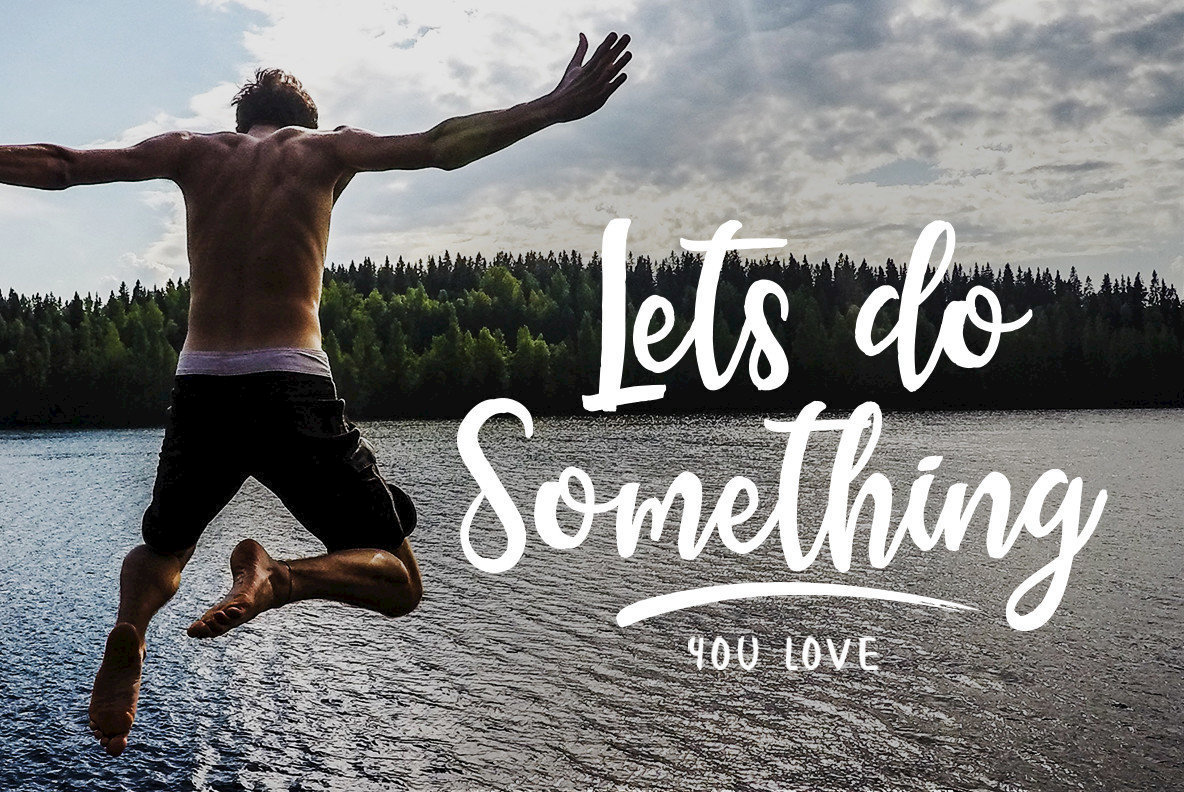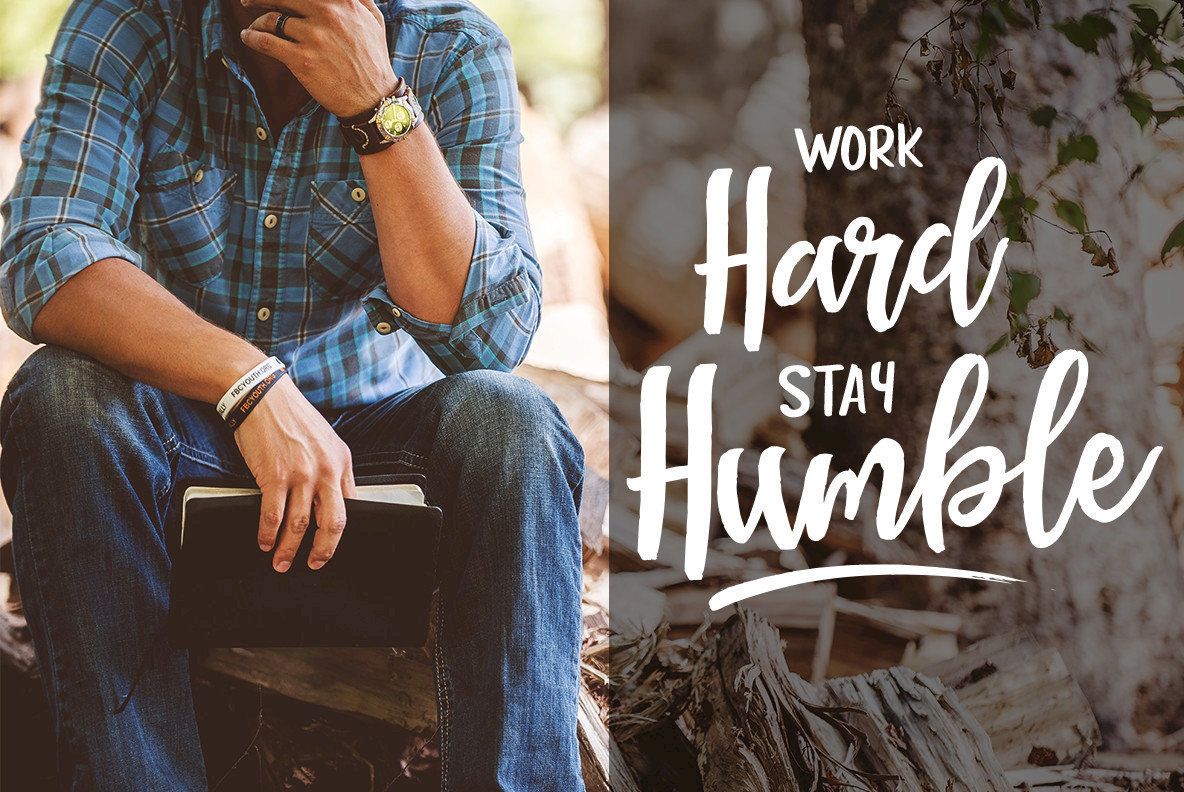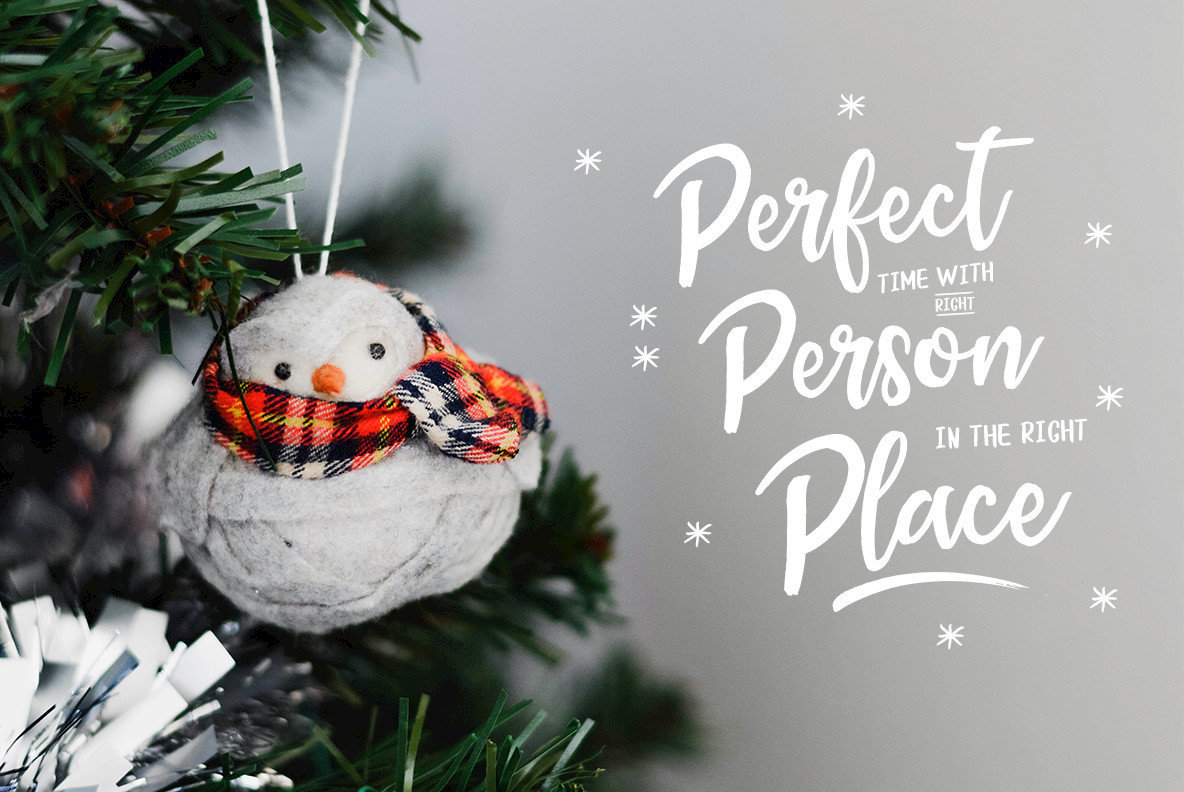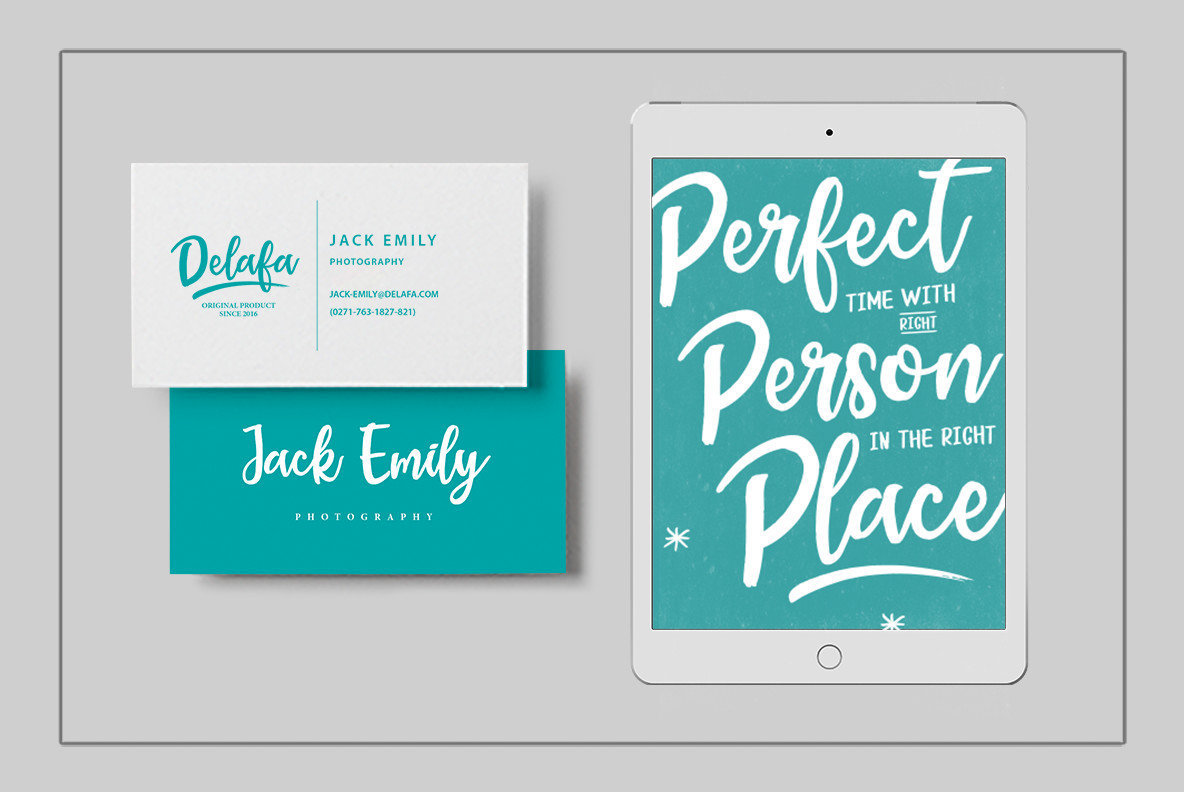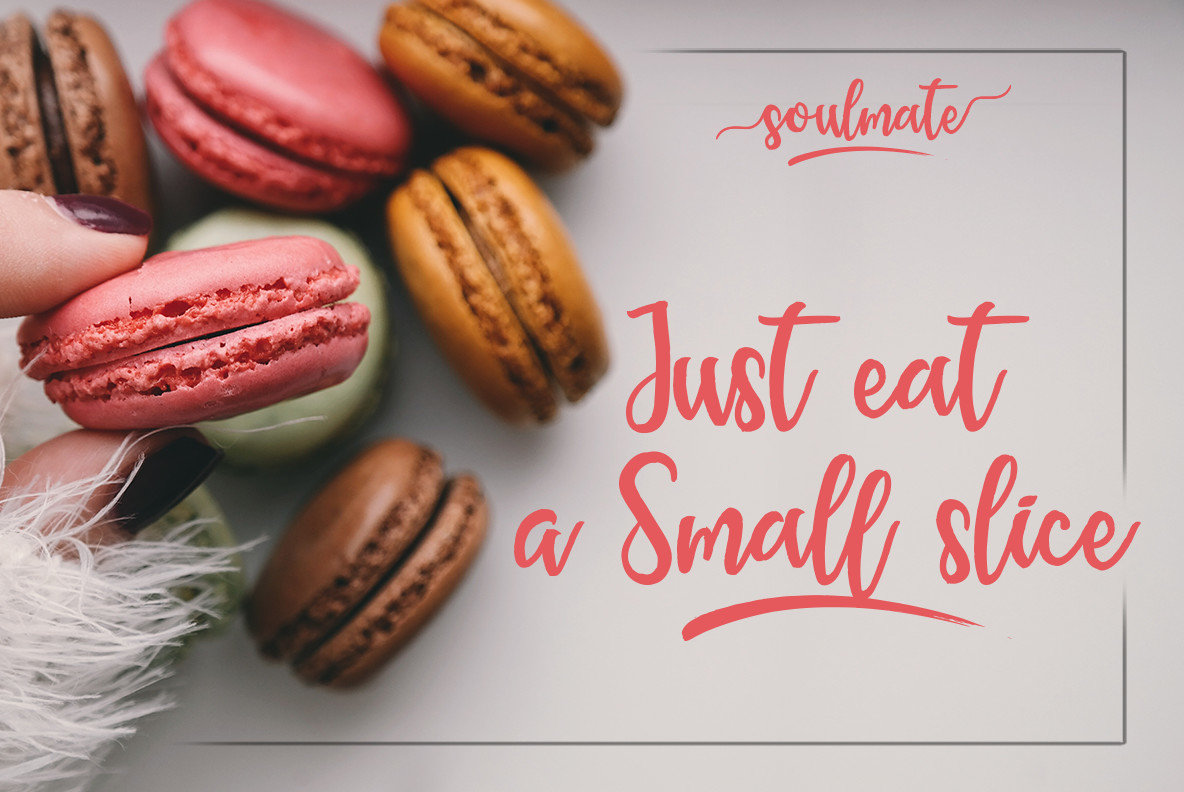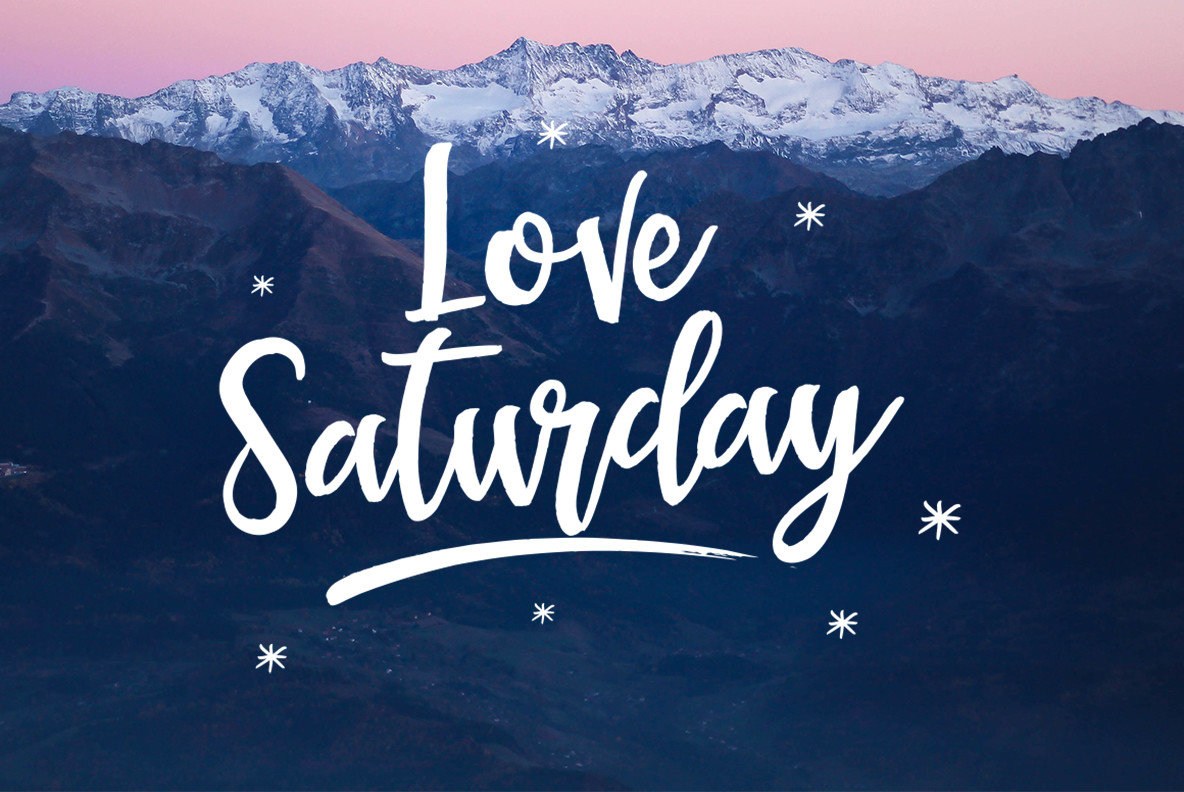
Soulmate Script Font
Soulmate Script offers a charming hand-brushed touch to your creative projects. Its versatility makes it ideal for diverse applications, from logos and name tags to handwritten quotes and product packaging. Featuring a complete set of uppercase and lowercase letters, this typeface simplifies the design process, saving precious time across various media such as social media, merchandise, and greeting cards. Features: Soulmate Script is designed to meet the needs of an international audience with support for languages such as Danish, Finnish, Spanish, Dutch, German, and more. Utilizing OpenType features, alternate glyph access becomes intuitive in editing programs like Adobe Illustrator, Photoshop, Indesign, and Corel Draw.Soulmate Script: A Hand-Brushed Typeface for Versatile Design
Multilingual Support